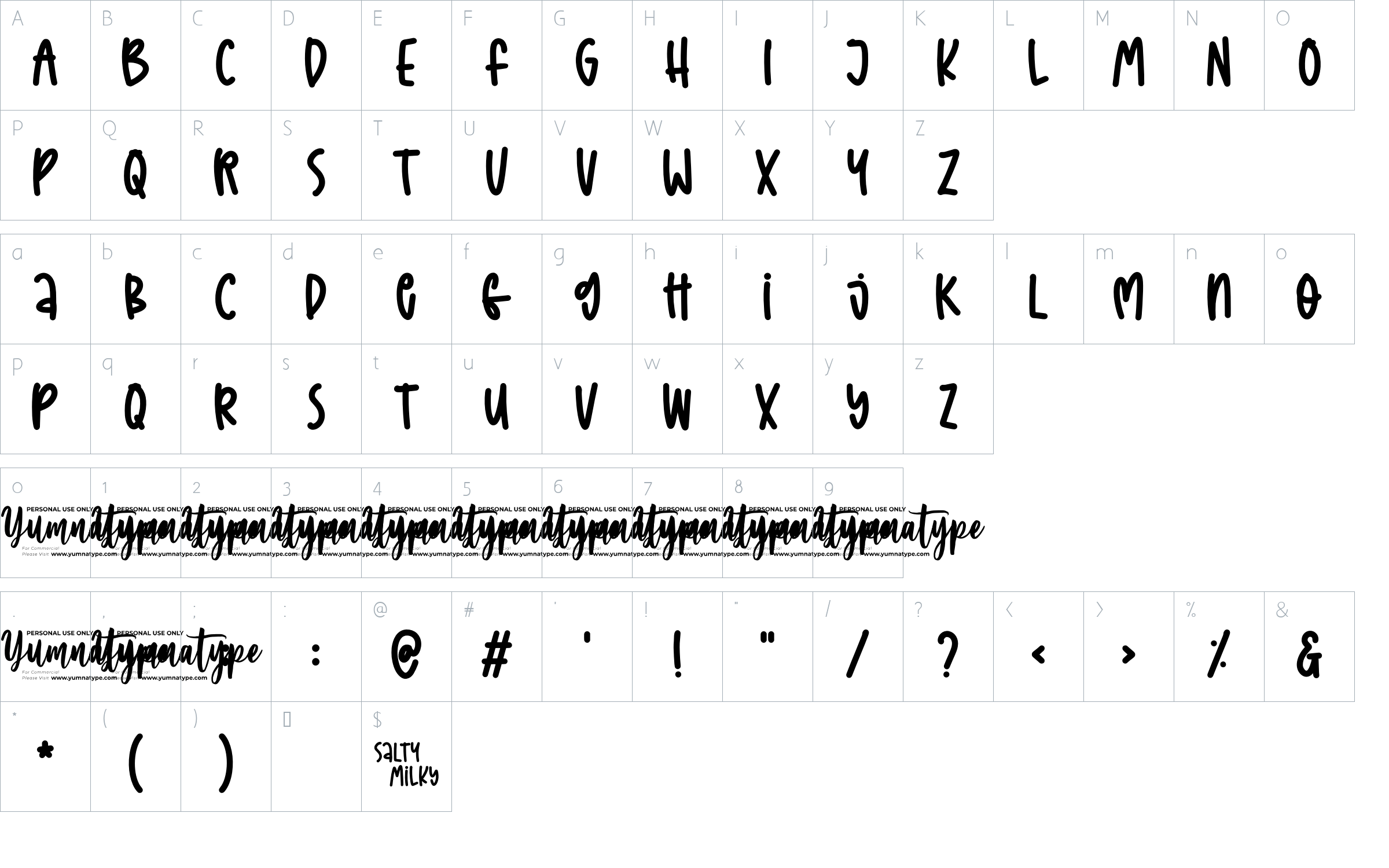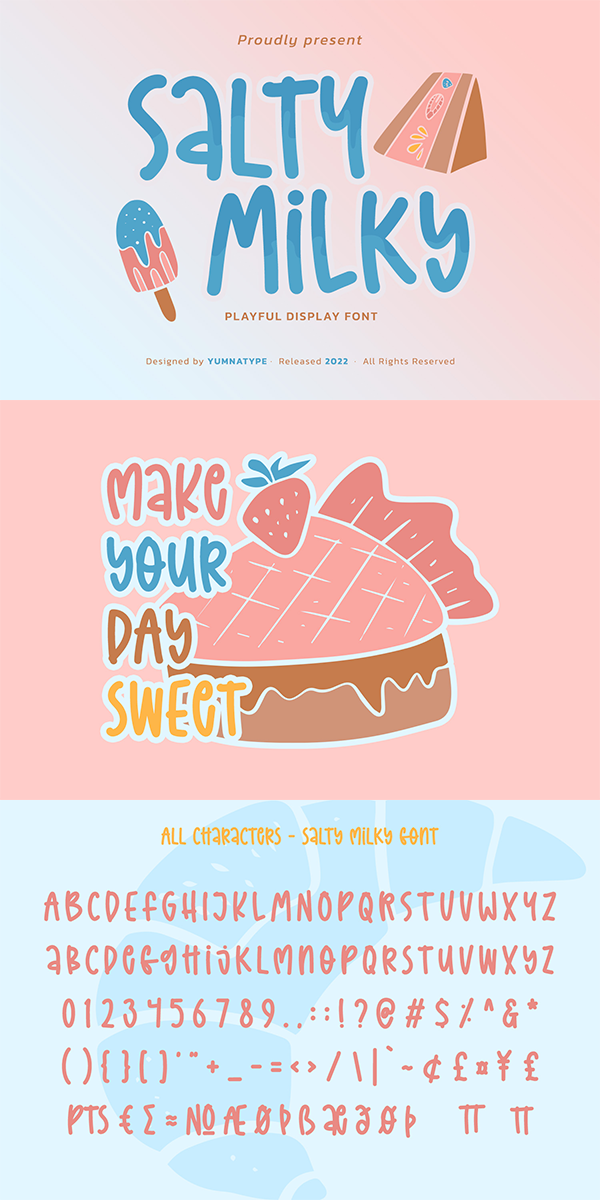
Salty Milky Font
About Salty Milky
Salty Milky is a display font in thick weights to be your best choice for showing casual, charming, fun expressions. The uneven proportions and forms of the artistic letters add more attractiveness to this font. Furthermore, Salty Milky gives you a special bonus called the clipart. Use this font for big text sizes for a legibility reason and you can make use of the interesting features available here as well.
Salty Milky fits for various design projects, such as posters, banners, logos, magazine covers, quotes, headings, printed products, merchandise, social media, etc. Find out more ways to use this font by taking a look at the font preview.